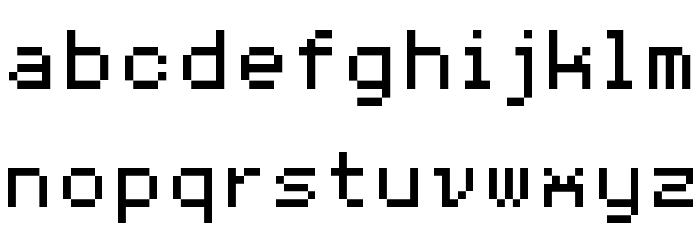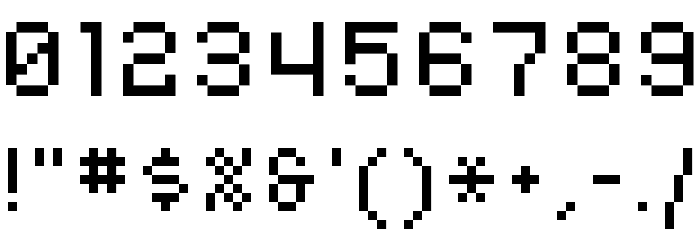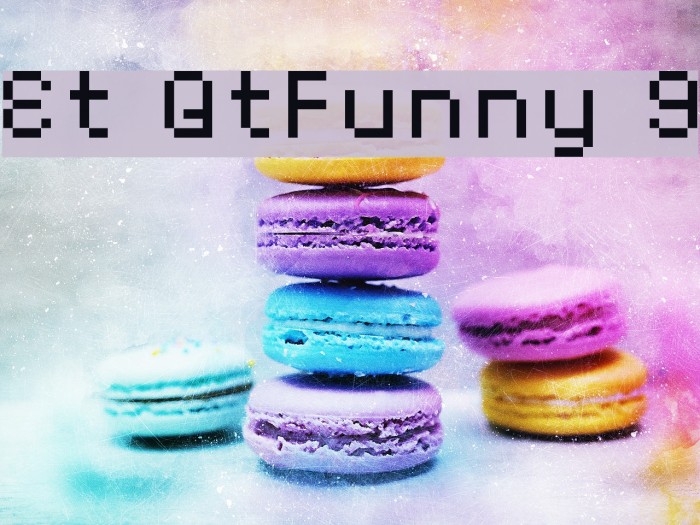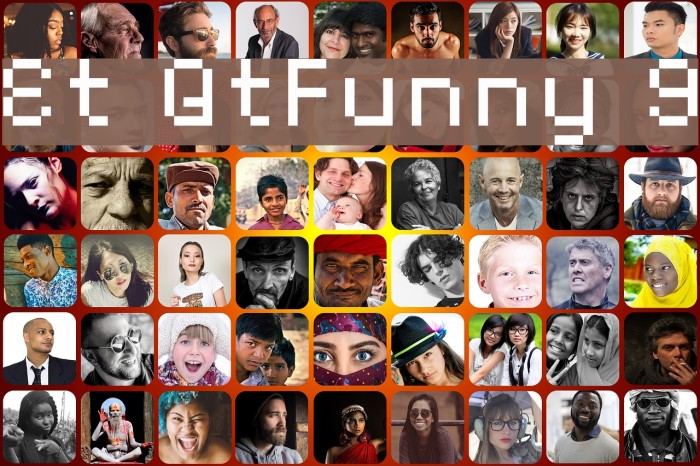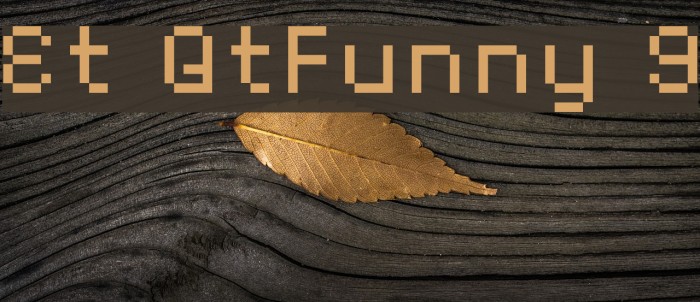
Et QtFunny 9 Font
This font features a pixelated, blocky design reminiscent of early digital displays and retro video games. Each character is constructed with a grid-like precision, giving it a distinctly digital and geometric appearance. The uppercase and lowercase letters maintain a uniform height, contributing to a monospaced feel, although the font itself is not strictly monospaced. The numerals and special characters follow the same pixelated style, ensuring consistency across all glyphs. The overall aesthetic is playful yet structured, making it suitable for projects that require a nostalgic or tech-inspired look.
A pixelated, blocky font with a retro digital aesthetic.
- Proposed Projects: Ideal for retro video game designs, tech-themed posters, digital art projects, and any creative work that seeks to evoke a sense of nostalgia for early computing.
- Overall Style: Retro, Digital, Playful
- Use Case: Logos, Headlines, Posters, Digital Art